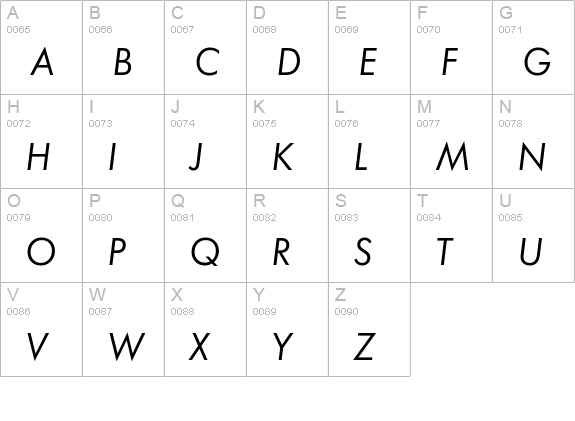
Function-BookItalic Font Details
Function-BookItalic font is a sleek and modern typeface that exudes elegance and professionalism. Its sharp, italicized design adds a touch of sophistication to any project, making it perfect for use in branding, editorial design, and more. With its clean lines and stylish curves, Function-BookItalic is sure to make a statement and capture the attention of your audience. The best part? Function-BookItalic font is available for free download at FontsMarket.com. Simply head over to the website and easily access this stunning font to enhance your designs with its timeless appeal. Don't miss out on the opportunity to elevate your projects with the effortlessly chic Function-BookItalic font today!